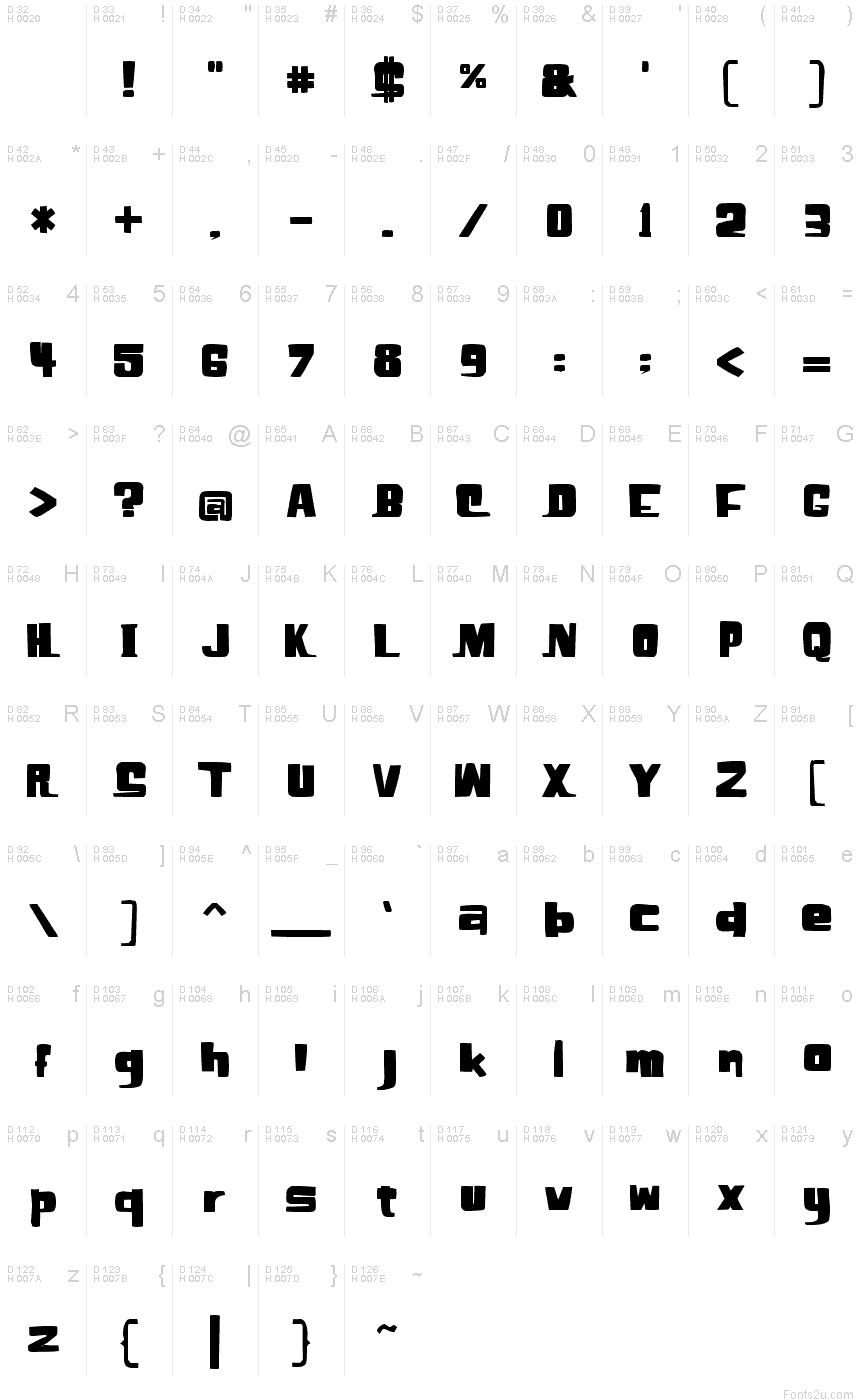
ElHombre
ElHombre font by G. Alex Gonzalez of Sluggo Design/CHANK! is a free comic display typeface with the swagger of a hand-painted poster. Thick, blocky letterforms lean and wobble just enough to feel human, like inked brush strokes on rough paper. The shapes are chunky and slightly uneven, giving headlines a loud, streetwise attitude without becoming messy or hard to read.
Using ElHombre, your titles jump out like wrestling match bills or underground gig flyers. This free font shines on comic covers, zines, skateboard graphics, T‑shirts, event posters, and bold social graphics where you want impact and personality. Keep it big and tight, and pair it with a simple sans serif for small supporting text to let ElHombre handle the shouting.